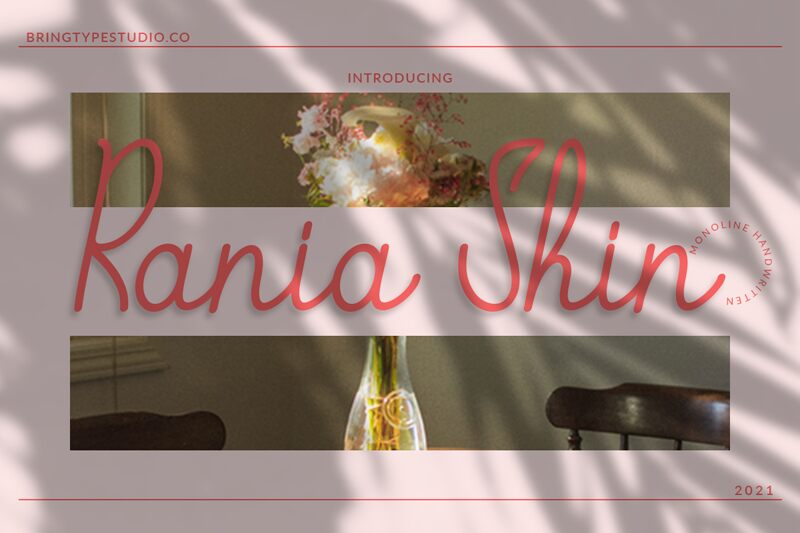
Rania Shin
Rania Shin is a beautiful handwritten font designed by bringtypestudio.co. Its light weight and semi-condensed width make it perfect for projects that need a delicate touch, such as wedding invitations or personal branding. The unique handwritten style adds personality and warmth to any design, whether it's a logo or social media graphics. With Rania Shin, your designs will stand out from the crowd and leave a lasting impression on your audience. So why settle for ordinary when you can have extraordinary? Try Rania Shin today and elevate your designs to the next level!